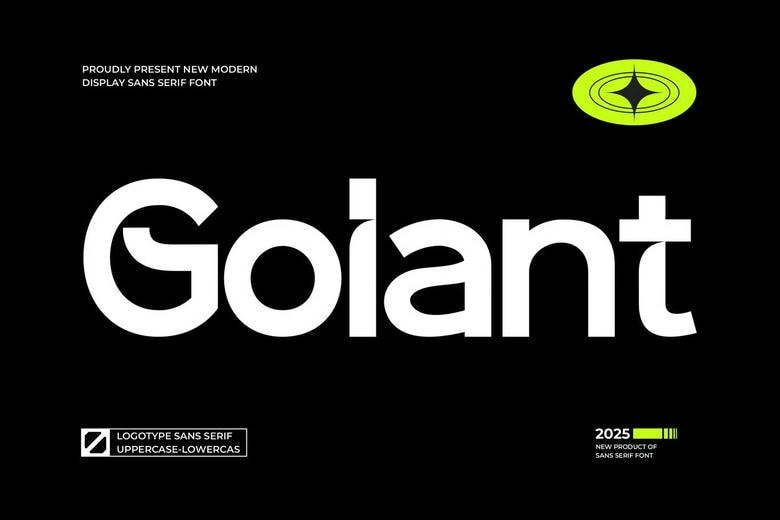
Golant Font
Golant is a contemporary sans serif font that attracts notice through its bold and assertive lines, assured weight and bold simplicity. It is impact-designed and conveys power and clarity without being affected in terms of beauty.
Its geometric layout and crisp edges lend it to headlines, branding, posters and digital design- anyplace a statement needs to be bold. This font is an expression of authority, imagination, and eternal modernity which is perfect when the brand in question requires some power and being stylish.
Golant Sans Serif Font